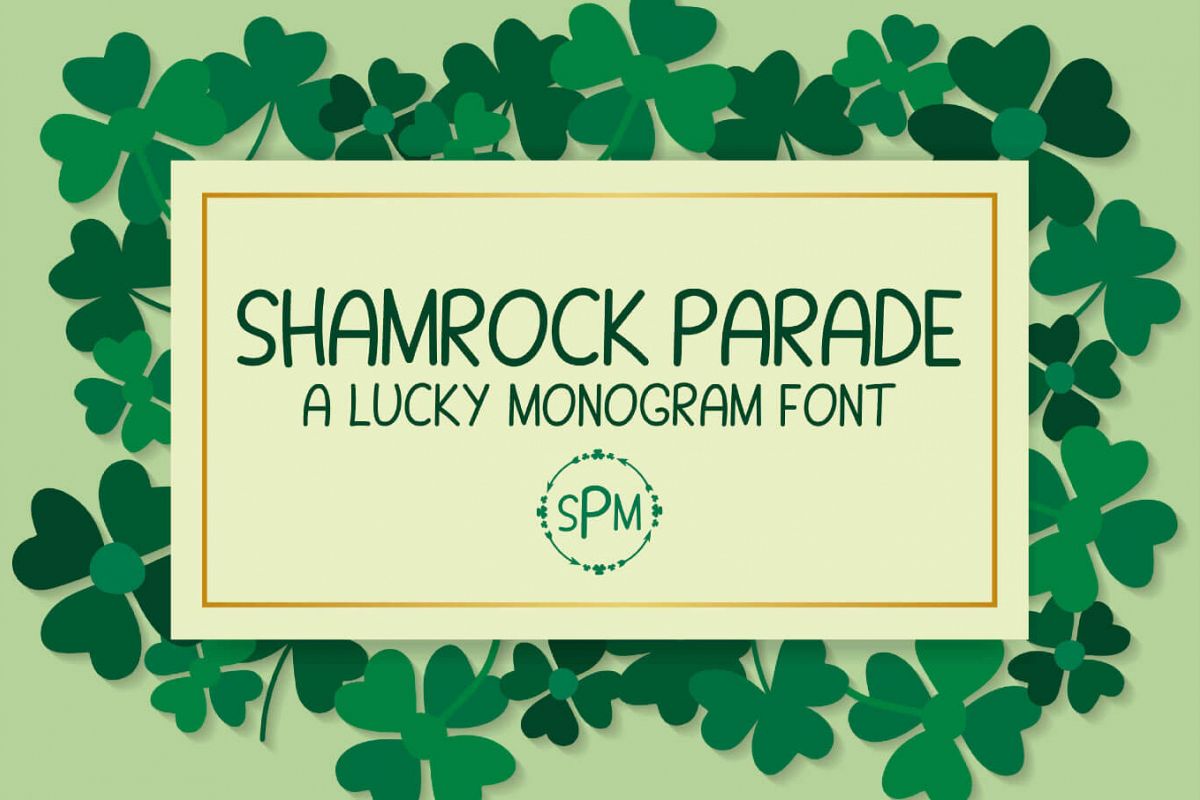
Shamrock Parade is a monogram font that can help you create personalized shirts, signs, tags, and more for St. Patrick's Day and special occasions.
- Uppercase: A-Z
- Lowercase: A-Z - same as uppercase but smaller to easily create monograms!
- 10 Monogram Frames - Choose a number 0-9 to select a frame!
Normally, monogram order is: First Initial, Last Initial, Middle Initial. With this font, use a lowercase letter, uppercase letter, then lowercase letter, aAa, this will create your perfect monogram! Now all you need to do is browse the monogram frames provided by choosing numbers 0-9 and size accordingly. You can also use any frames that you already have. Be creative & enjoy!